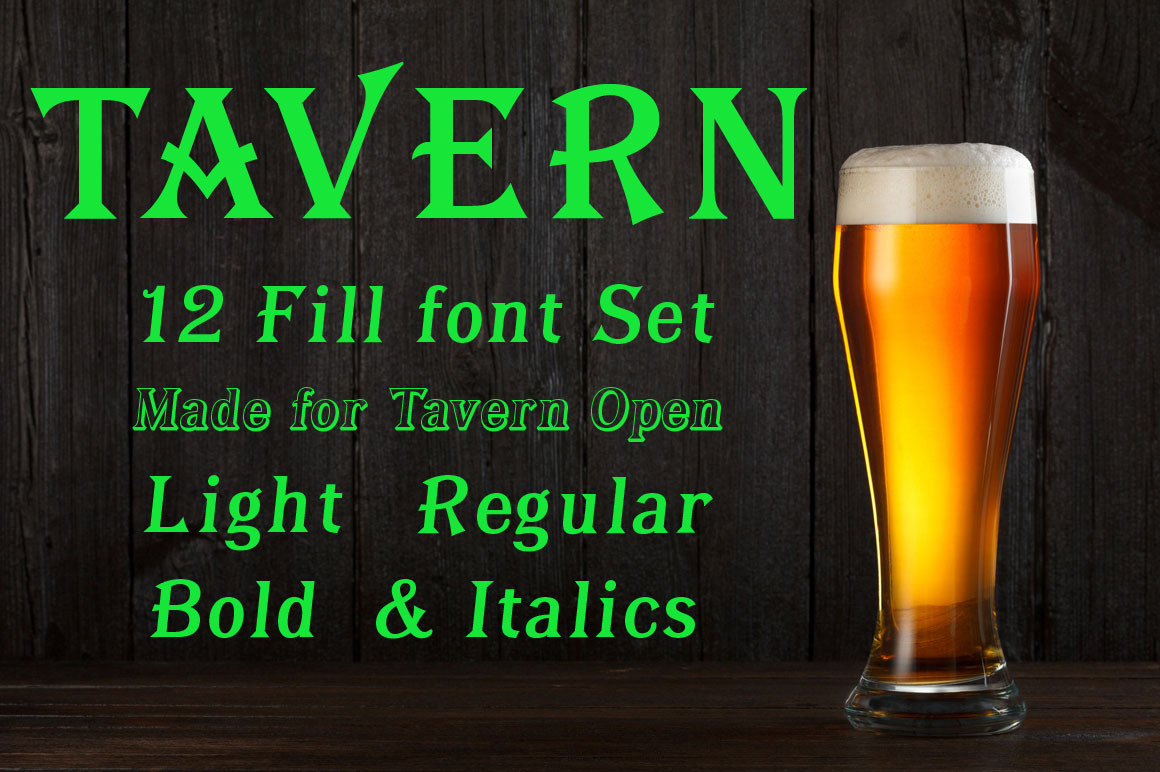
Tavern Fill Font Set
Tavern is a new font super family based on our Algerian Mesa design, with Tavern we've greatly expanded the usability by creating new light and bold weights. The addition of the bold weight made it possible to go further with the design by adding open faced shadowed, outline and fill versions. Please note, the fill fonts are aligned to go with the open faced versions, they may work with the outline versions, however you will have to apply them one letter at a time. The Tavern Fill fonts may also be used a stand alone font, however, the spacing is much wider than the regular solid black weights of Tavern. In the old days of printing, fill fonts rarely lined up perfect with the open or outline font, this created a misprinted look that's much in style today. To create that misprinted look using two different colors, try layering the outline fonts offset over the top of the solid black versions. Next we come to the small caps and X versions, for a font that's mostly seen used in all caps we felt a small caps would come in handy. The X in Tavern X stands for higher X-height, we've taken our standard lowercase and raised it for greater visibility in small text and for signage where you want the look of a lowercase but it needs to be readable from the street.
In August of 2016 I started the project of expanding this font into more weights after seeing the font in use where someone tried creating a bold version by adding a stroke fill around the letters. The result didn't look very good, the stroke fill also caused the shadow line to merge with the serifs on some letters. This lead me to experiment to see if a new bold weight was possible for this font and I'm pleased to say that it was. After the bold weight was finished I decided to type the regular and bold weights together in a first word thin second word bold combination, however the weight difference between the two wasn't enough contrast. This lead me to wonder if a lighter weight was possible for this font, as you can see yes it was, so now for the first time in the history of this old 1908 type design you can type a first word thin second word bold combination.
So why the name change from Algerian to Tavern? Since the original font was designed in England by Stephenson and Blake I decided to give this font a name that reminded you of the country it came from, however there were other more technical reasons. During the creation of the bold weight the engraved shadow line was sticking out too far horizontally on the bottom right of the serifs dramatically throwing the whole font off balance. The original font encountered this problem on the uppercase E, L and Z, their solution was a diagonal cut corner which was now needed across any glyph in the new bold weight with a serif on the bottom right side. In order to make the light and regular weights blend well with the bold weight diagonal cut offs were needed and added as well. This changed the look of the font from the original and why I decided to change the name, additional concerns were, if you're designing a period piece where the font needs to be authentic then this font would be too new.
Regular vs. Alt version? The alternate version came about after seeing the regular version used as a logo and secondary text on a major product label. I felt that some of the features of the regular version didn't look good as smaller secondary text, this gave me the idea to create an alternate version that would work well for secondary text in an advertising layout. But don't stop there, the alternate version can be used as a logo too and feel free to exchange letters between both regular and alternate versions.
Where are the original alternates from Algerian? Original alternates from Algerian are built into the regular versions of Tavern plus new alternates have been created. We're excited to introduce, for the first time, all new swash capitals for this classic font, you're going to love the way they look in your ad layout, sign or logo. The best way to access alternate letters in Tavern is with the glyph map in Adobe Illustrator and Adobe InDesign products, from Adobe Illustrator you can copy and paste into Photoshop as a smart object and take advantage of all the text layer style features Photoshop has to offer. There may be third party character maps available for accessing alternate glyphs but we can't advise you in that area.
I know what you're thinking, will there be a Tavern Condensed? It takes a lot of hours to produce a large font family such as this, a future condensed version will depend on how popular this standard version is.